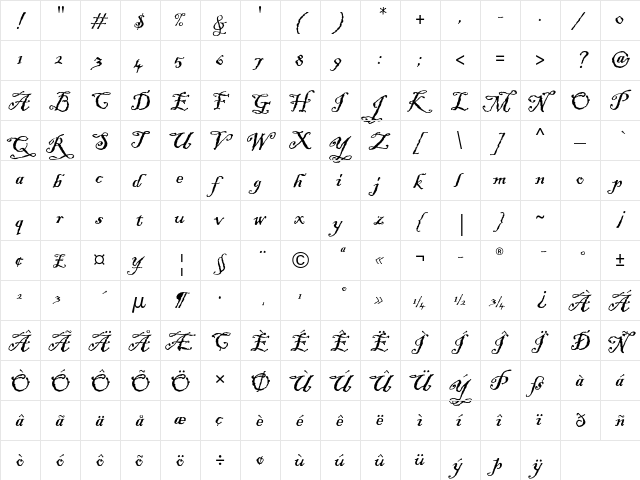
Blackadder ITC Std Regular
| Designer | Bob Anderton |
Design Context for Blackadder ITC Std Typeface
Blackadder ITC Std is a composed and adaptable typeface that performs quietly and consistently across a wide range of design contexts.
Originally released in 1997, this typeface is available in OpenType (OTF) format.